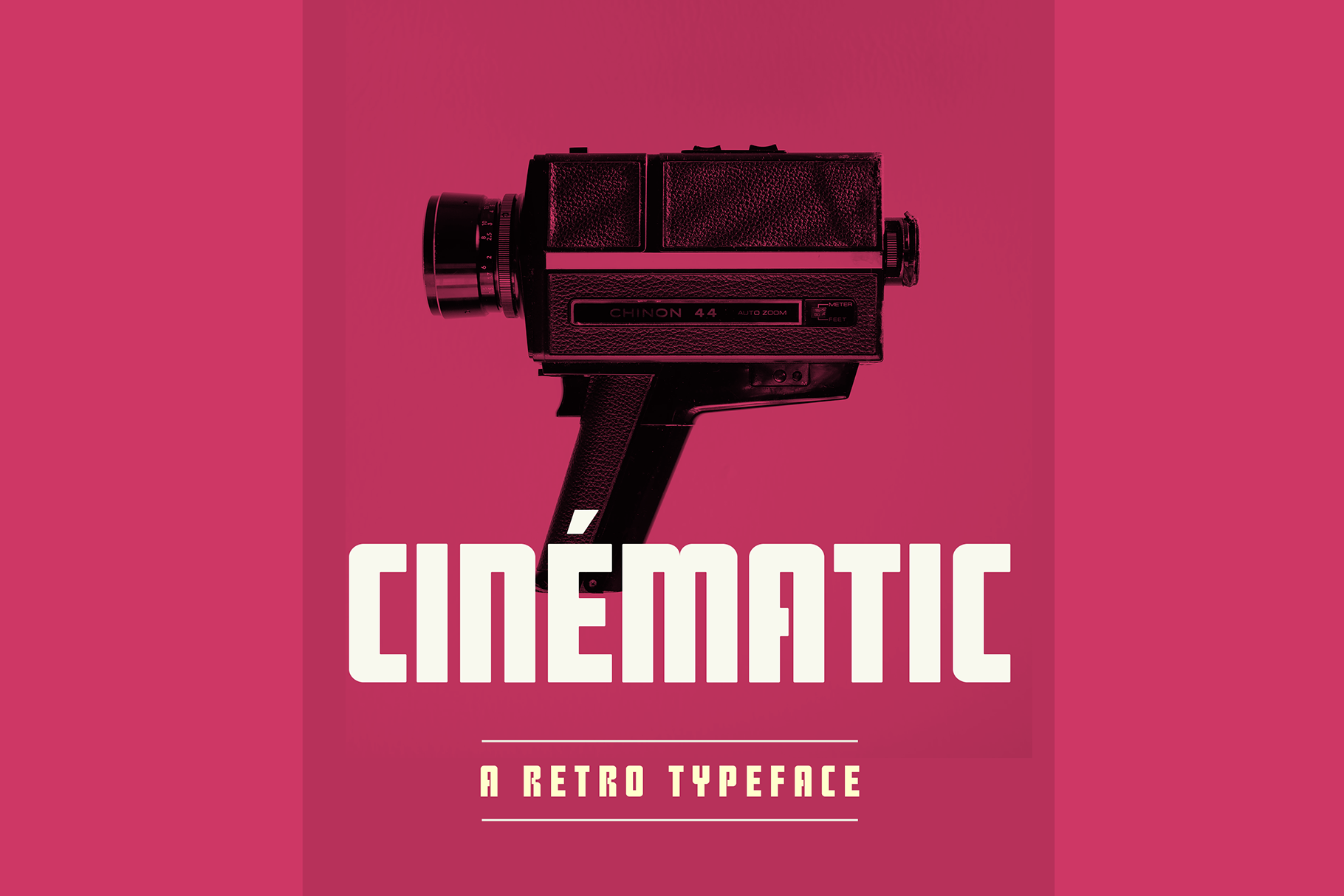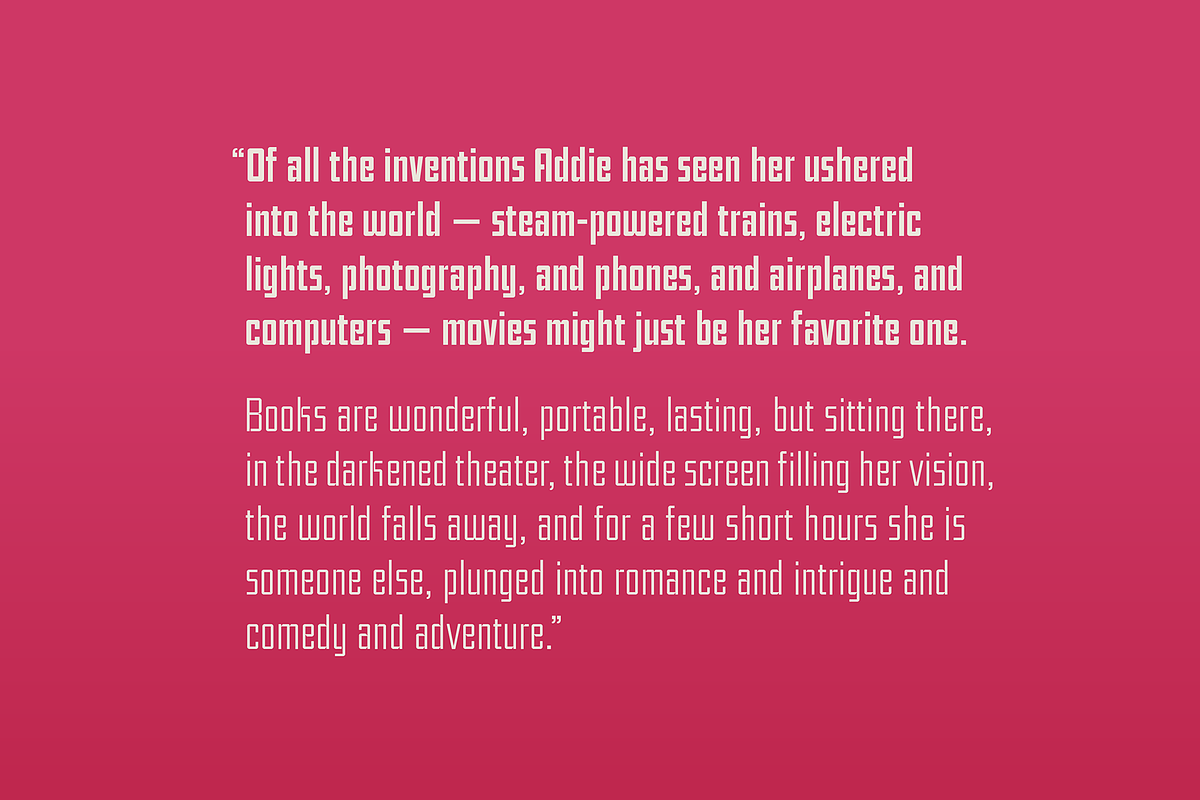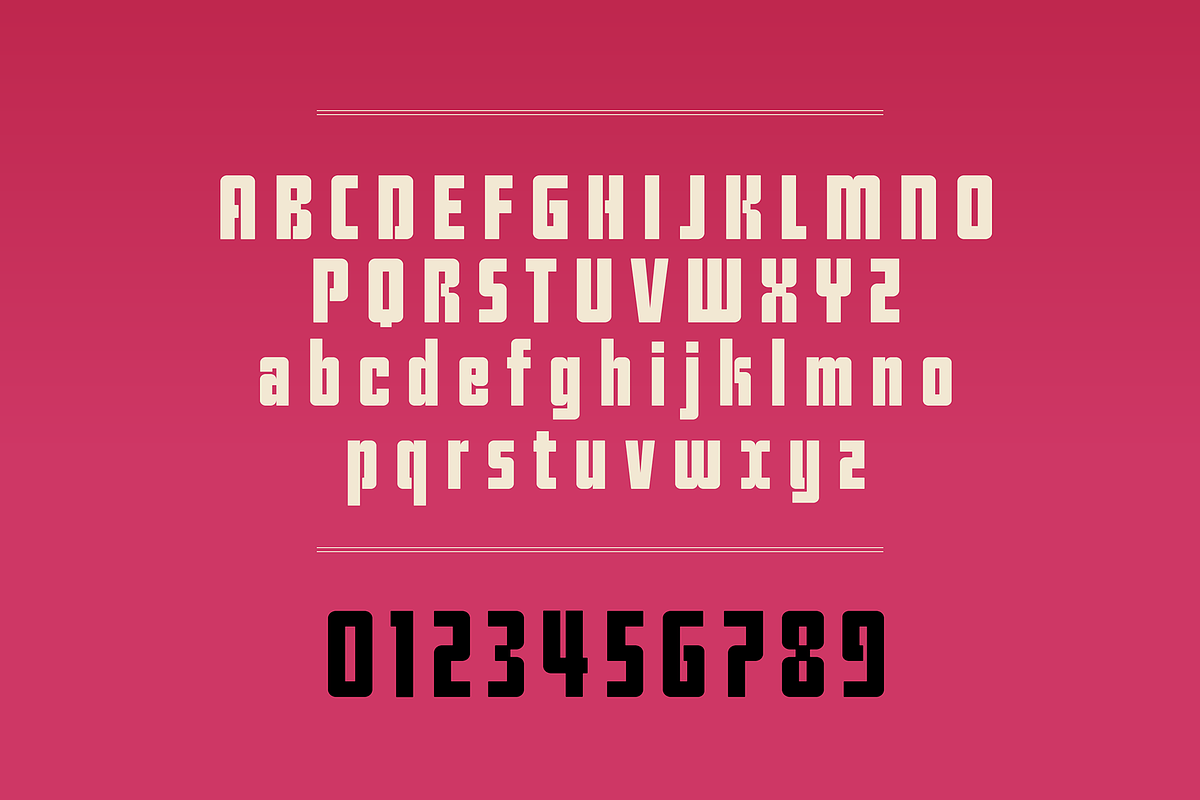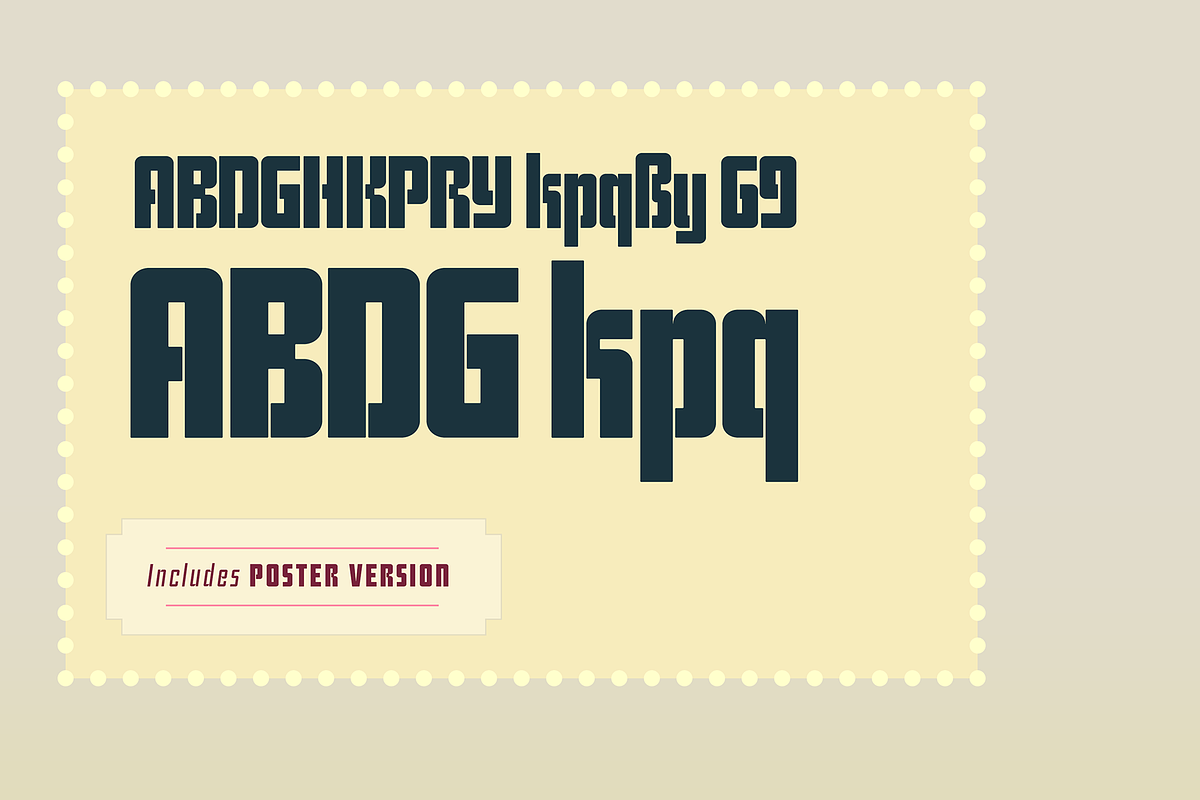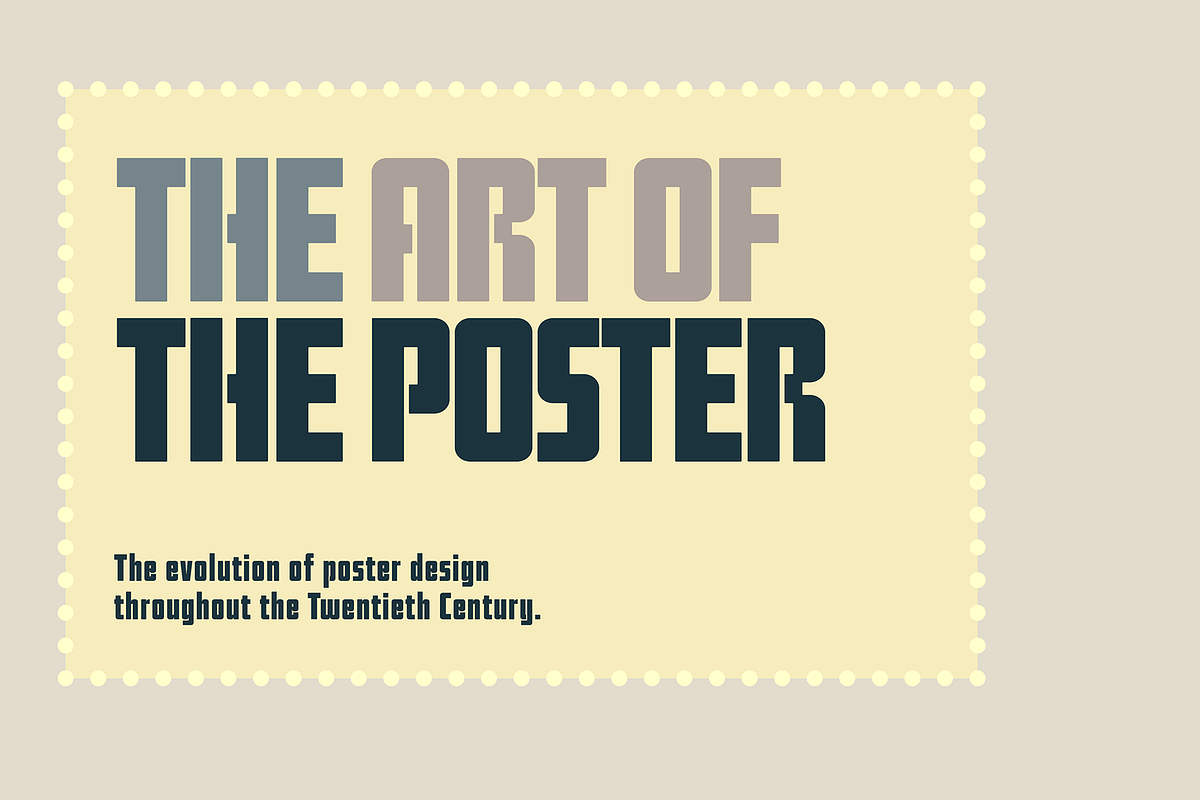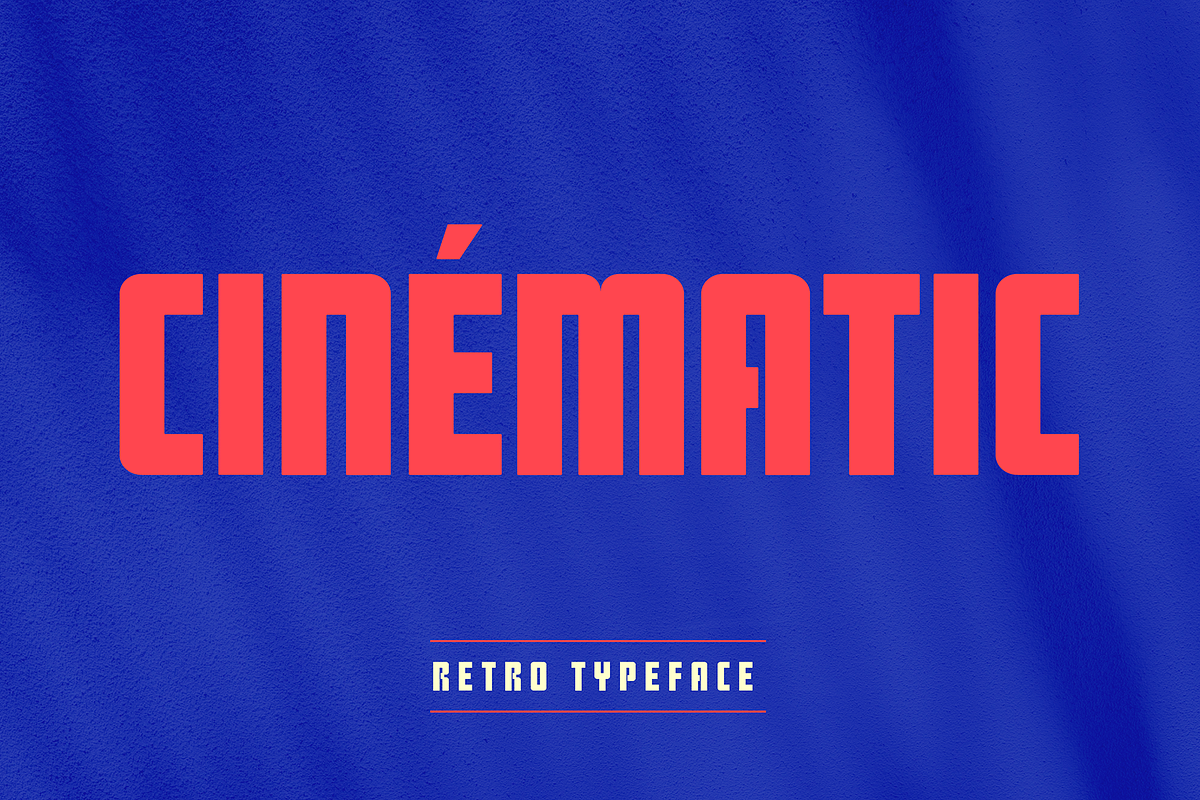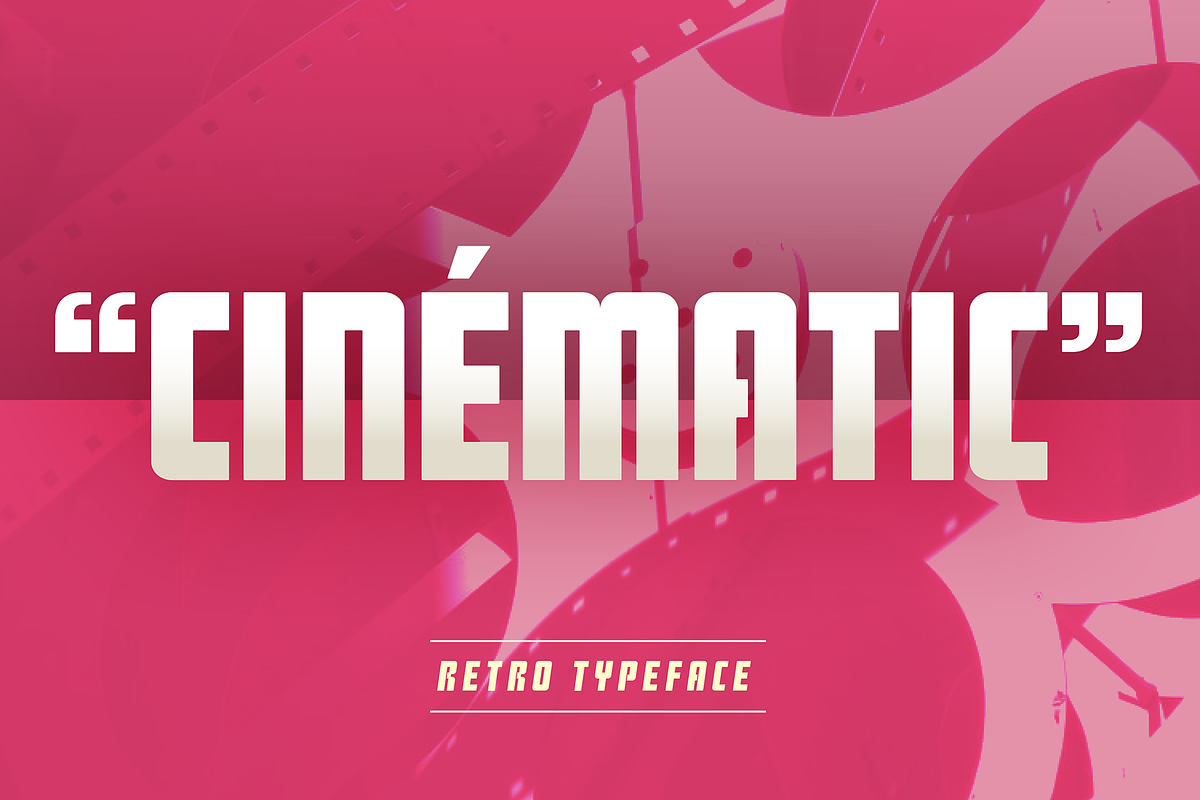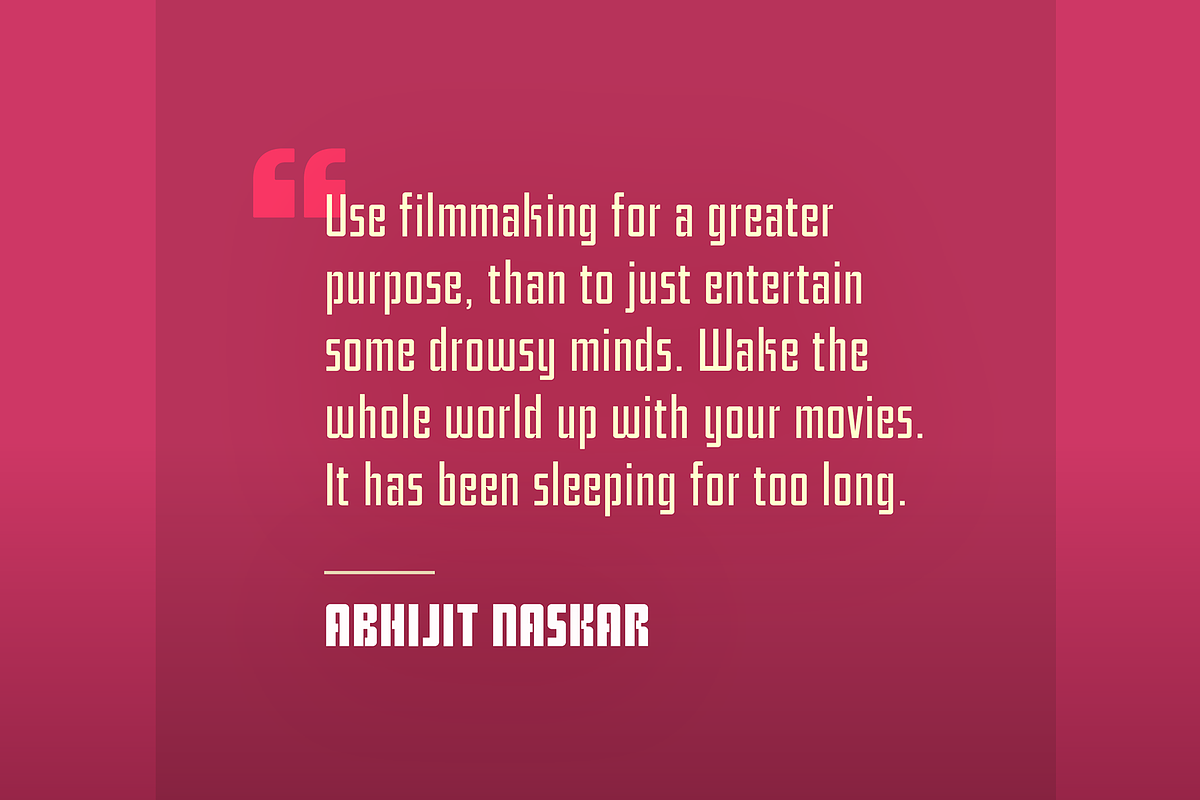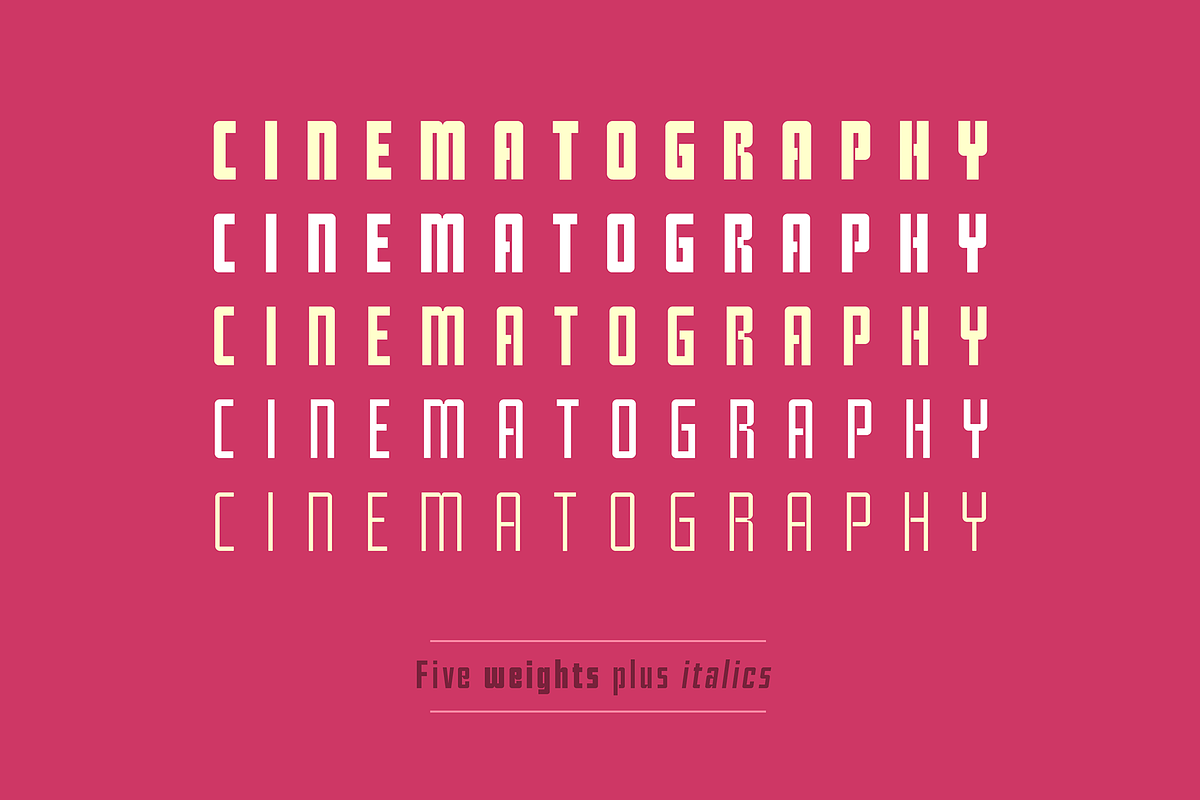
Cinematic retro sans (12 fonts)
SB Cinematic is a display sans serif in five weights. It includes italics and a poster version of the Extrabold weight for use at large sizes.